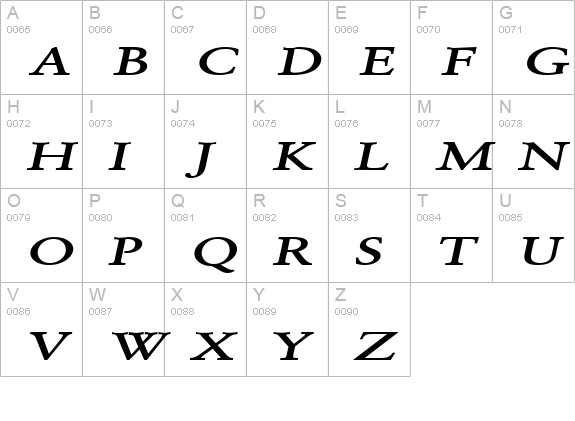
Garrick Extended BoldItalic is a distinctive, extended-width variant in the Garrick typeface family \xE2\x80\x94 well suited to design and typography projects.
Garrick Extended BoldItalic font is a modern and stylish typeface that exudes confidence and sophistication. Its bold and italic design adds a touch of elegance to any project, making it perfect for headlines, logos, and branding materials. The sleek and streamlined look of this font is sure to make a statement and captivate your audience. The best part is that Garrick Extended BoldItalic font is available for free download at FontsMarket.com. You can easily access this versatile and eye-catching font to elevate your designs and create a lasting impression. Don't miss out on the opportunity to enhance your projects with this stunning typeface that will set you apart from the rest. Download Garrick Extended BoldItalic font today and let your creativity shine!